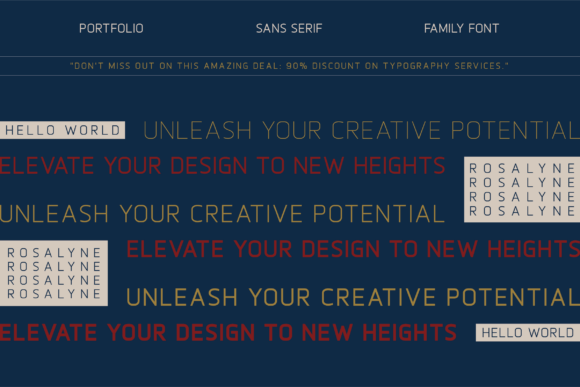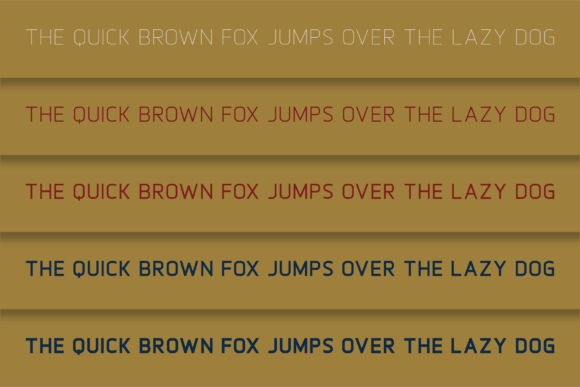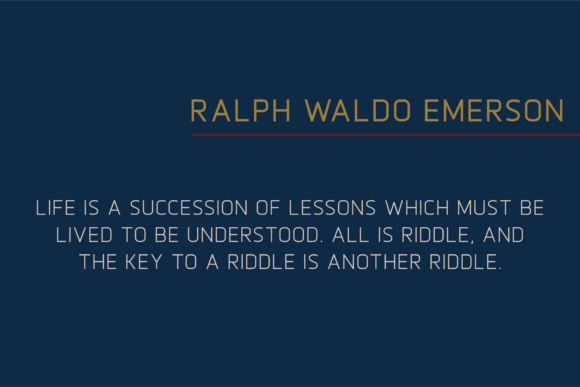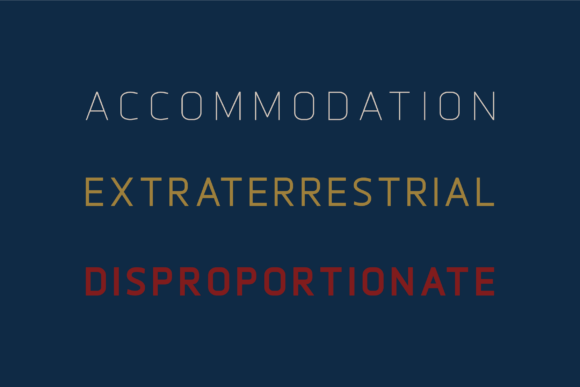
Introduction to Rosalyne Font
Have you ever stared at a blank canvas, eager to bring your creative vision to life, only to be held back by the perfect font? For designers, finding that elusive combination of style and sophistication can be a daunting task. But what if you had a design resource that could elevate your projects with ease? Enter Rosalyne Font, a masterfully crafted sans-serif font family that’s about to revolutionize your creative workflow.
With its 5 distinct weights and seamless versatility, Rosalyne Font is the ultimate solution for designers seeking high-quality typography. Whether you’re working on a magazine spread, a logo, or a film poster, this font family adapts effortlessly to your needs. Plus, its clean lines and transparent background make it a perfect fit for modern design projects. And the best part? Rosalyne Font is available for a free download, giving you the freedom to unlock your full creative potential.
Key Features of Rosalyne Font
- High-quality design resource ideal for creative projects requiring elegant typography.
- Unique, modern design with a transparent background, allowing for seamless integration into various design elements.
- Resolution-independent, ensuring crisp and clear text display regardless of screen resolution or print size.
- Size: 1 font, with multiple weights and styles available (Thin, Light, Regular, Medium, Bold, Heavy) for added versatility.
- Suitable for use in various creative projects, including branding, packaging, advertising, and editorial design.
Honest Review: Rosalyne Font
As a designer, I’m always on the lookout for high-quality design resources to elevate my creative projects. Recently, I came across the Rosalyne Font, and I’m excited to share my thoughts with you.
- The Rosalyne Font has a beautiful, elegant design that makes it perfect for a variety of creative projects, from fashion to beauty.
- The font comes with a transparent background, which makes it easy to use in different design applications.
While the Rosalyne Font is a great addition to any design library, there are a few limitations to keep in mind:
- The font may not be suitable for more complex, industrial designs, as it’s primarily geared towards fashion and beauty.
- The font’s versatility is limited to the design styles it’s intended for, so don’t expect it to work well in more corporate or technical settings.
In conclusion, the Rosalyne Font is a wonderful addition to any design library, especially for designers working on creative projects in the fashion or beauty industry. While it may have some limitations, its high-quality design and free download make it an excellent resource for designers of all levels.
Tips for Getting the Most Out of Rosalyne Font
Here are some tips to help you get the most out of Rosalyne Font:
- Use the font in conjunction with a transparent background for a high-quality, design resource.
- Experiment with different font sizes and styles to create a unique look for your creative project.
- Use the font in combination with other design elements, such as images and shapes, to create a visually appealing design.
Rosalyne Font is a versatile font that can be used in a variety of creative projects, including:
- Branding